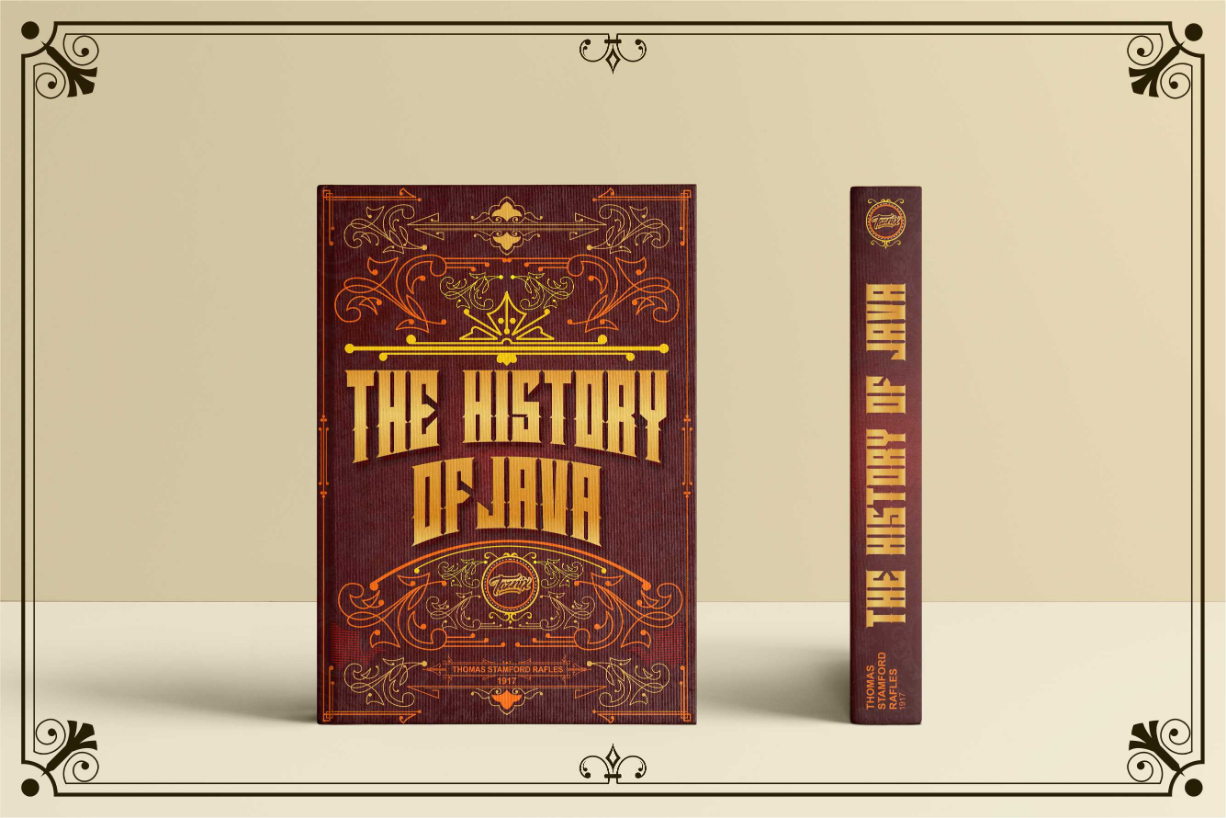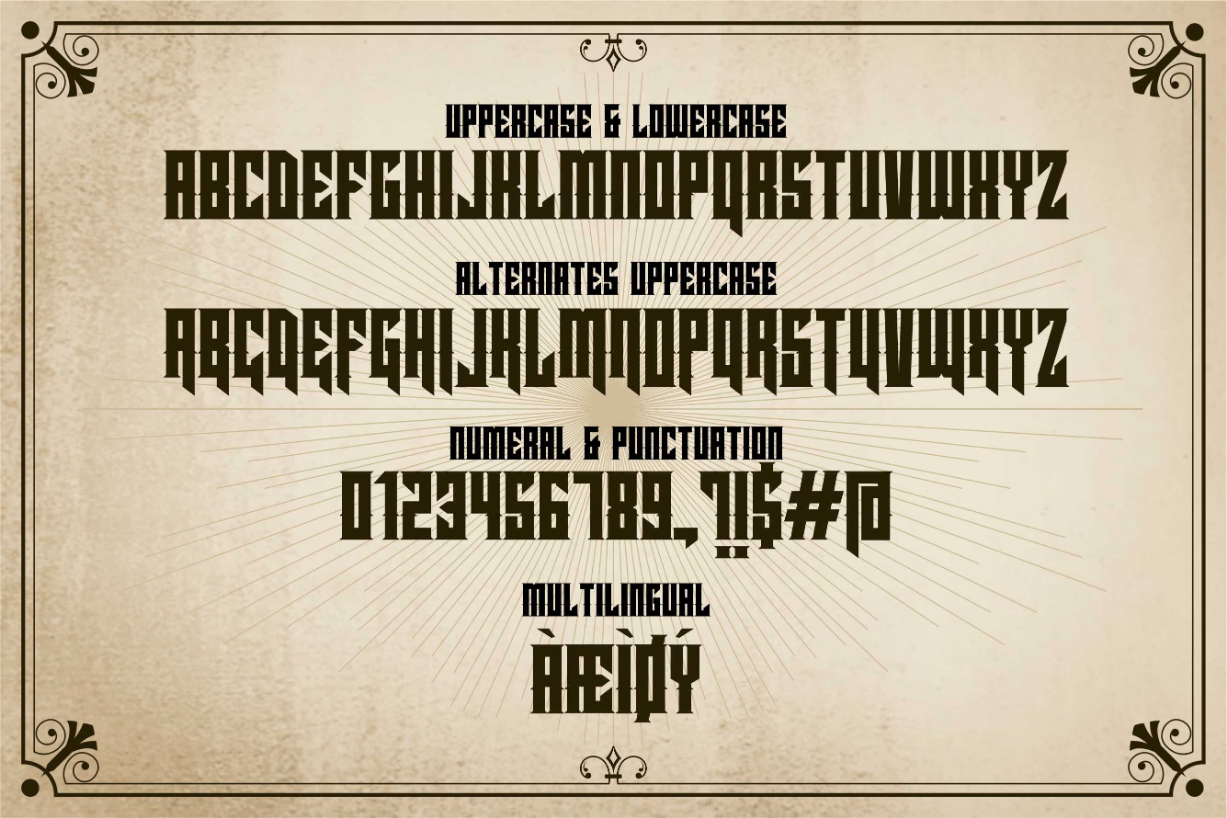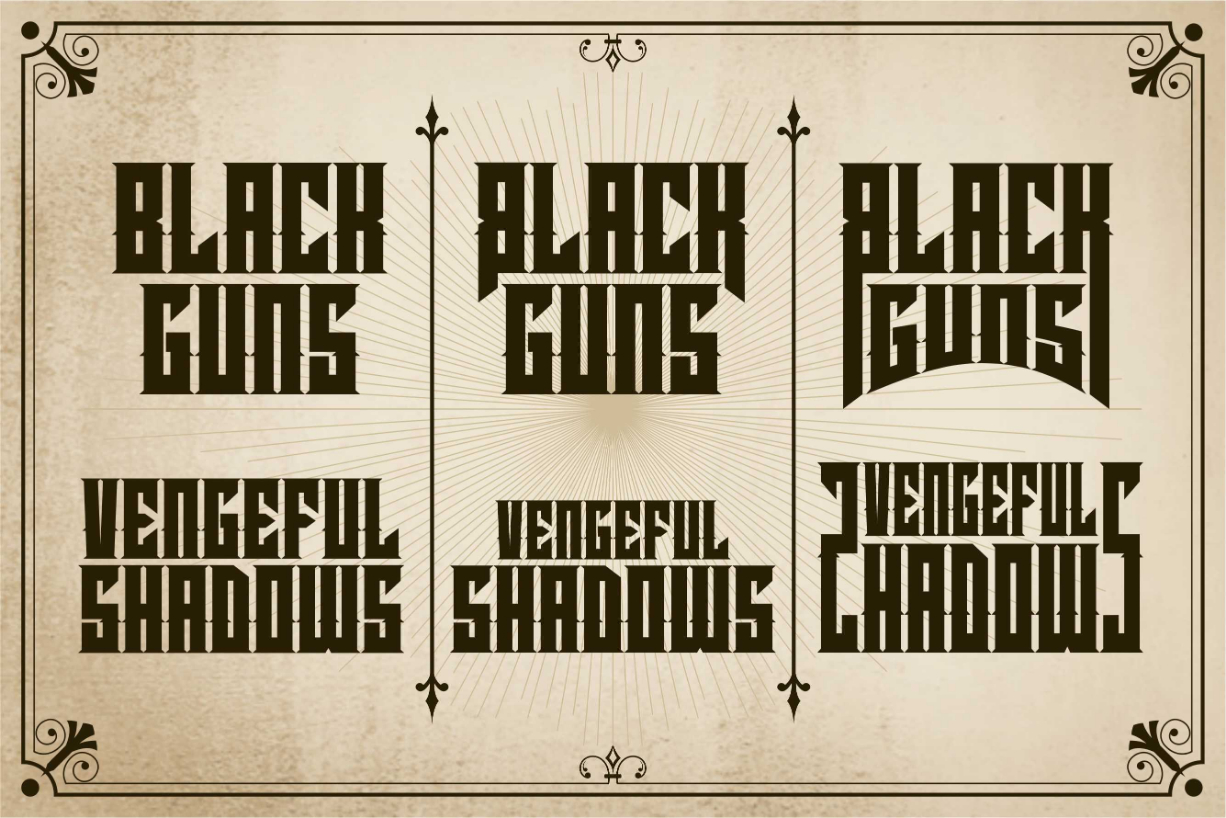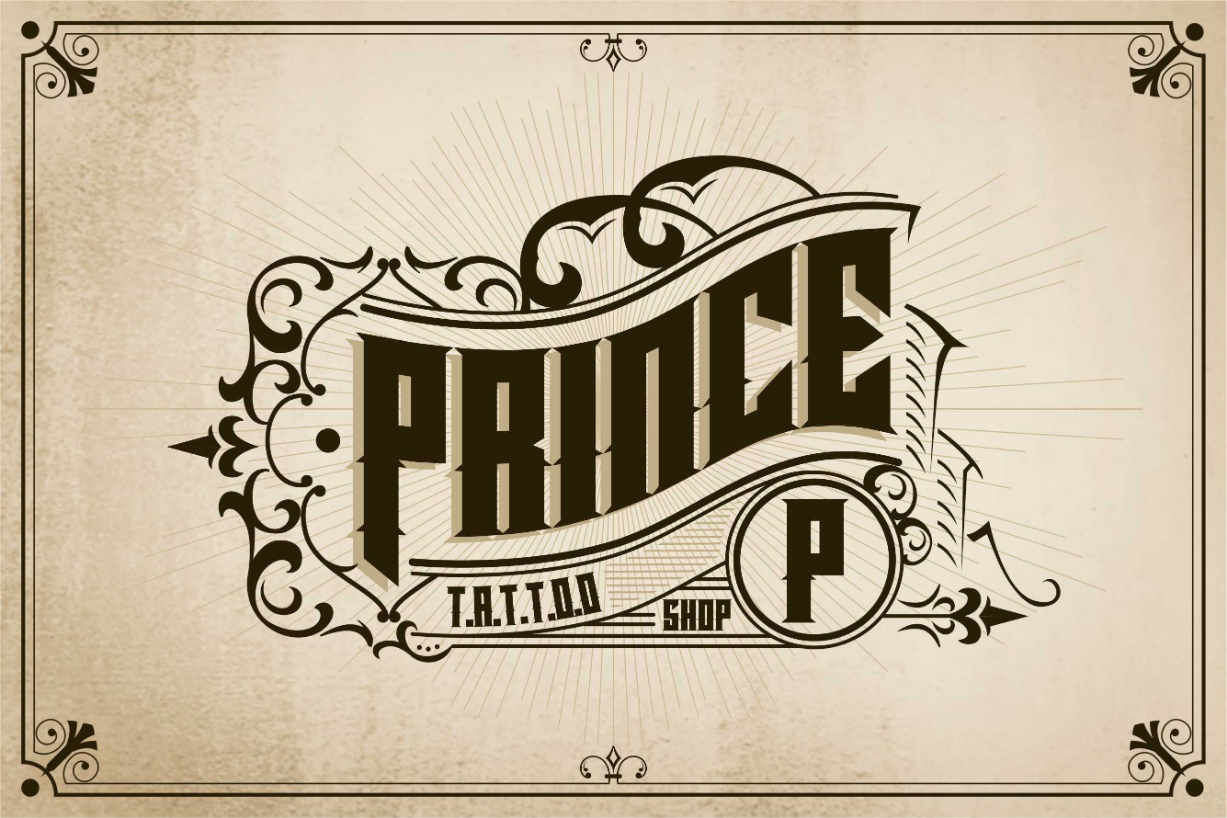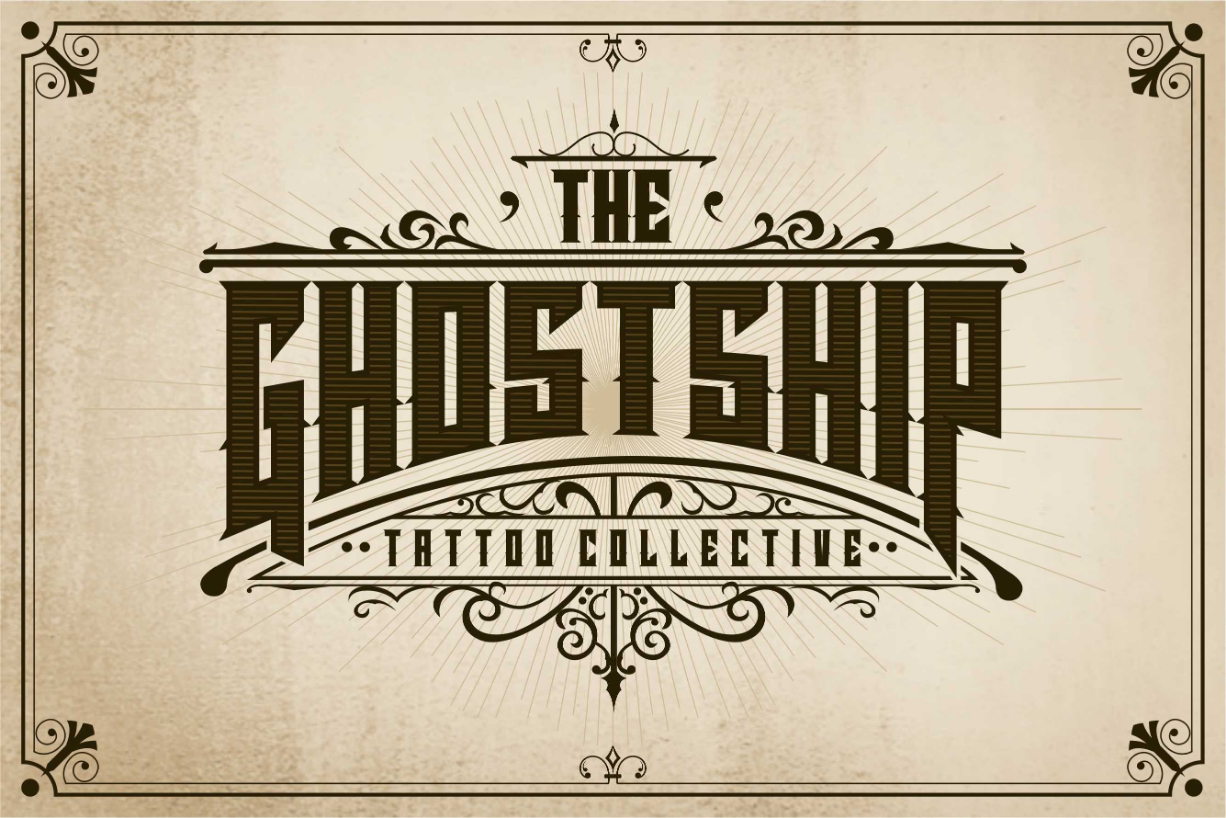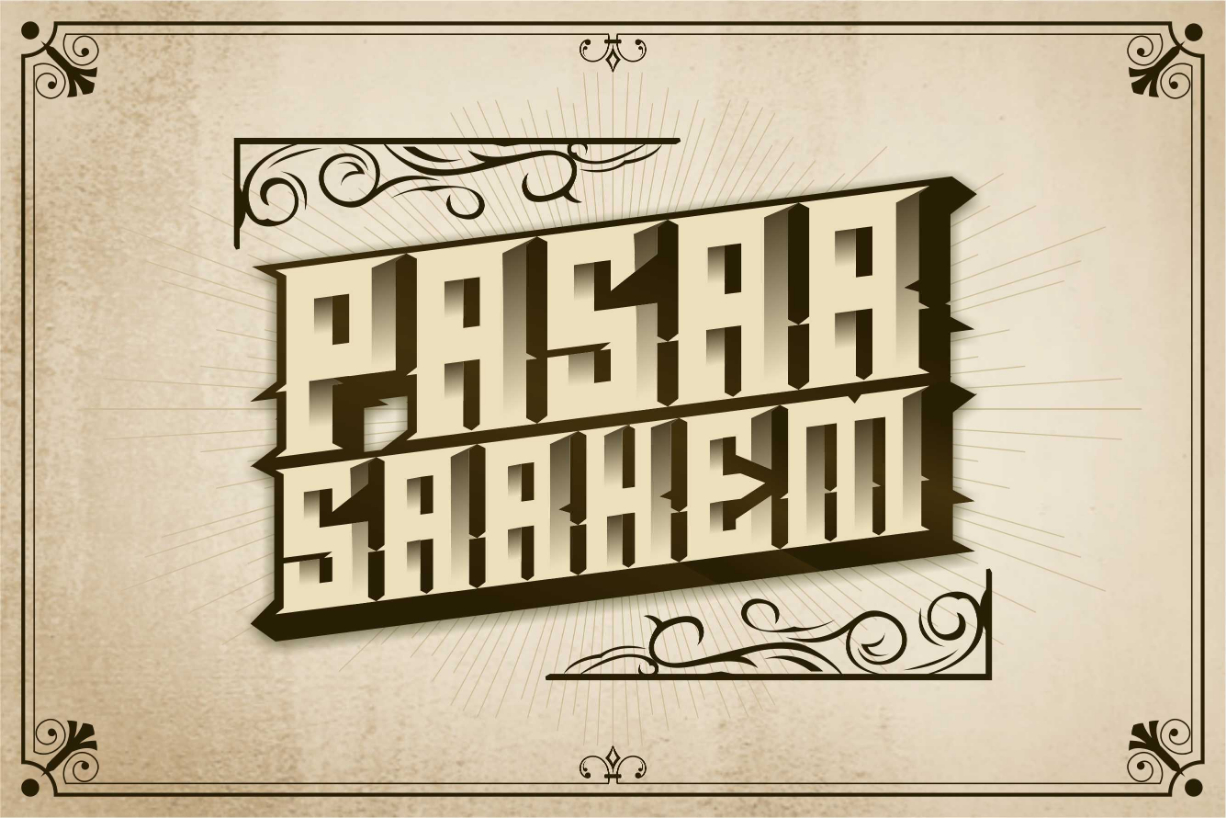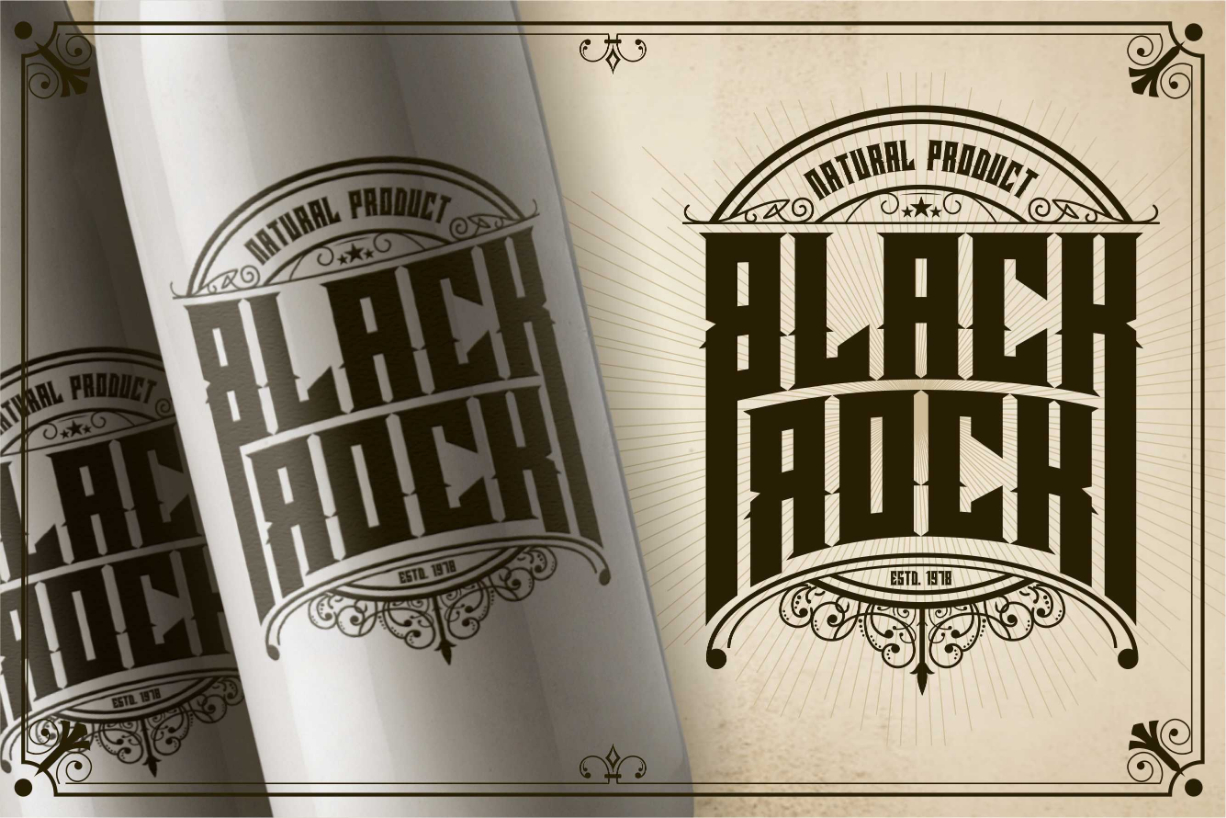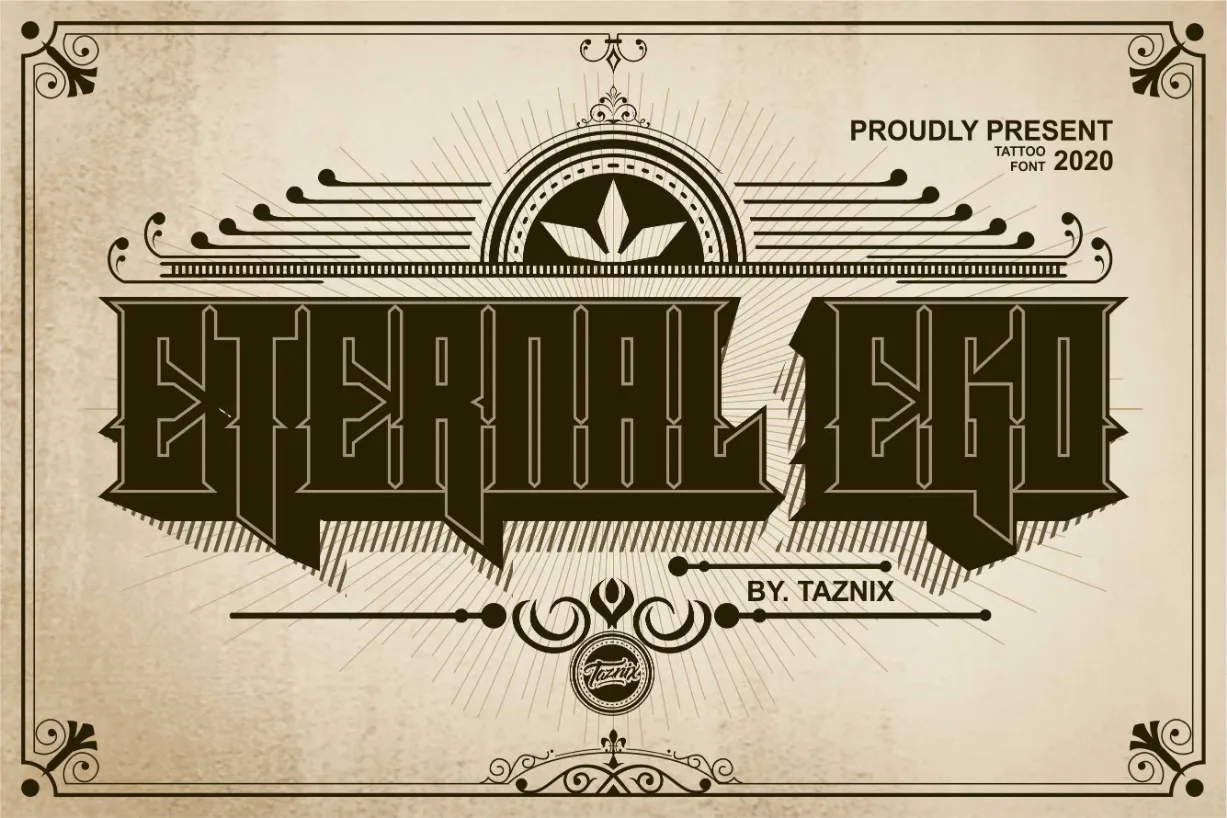
Eternal Ego Font
About Eternal Ego Font
Eternal Ego is a distinct blackletter font. It has an incredibly interesting mix of vintage and dramatic styles, and it looks stunning on a wide variety of contexts!